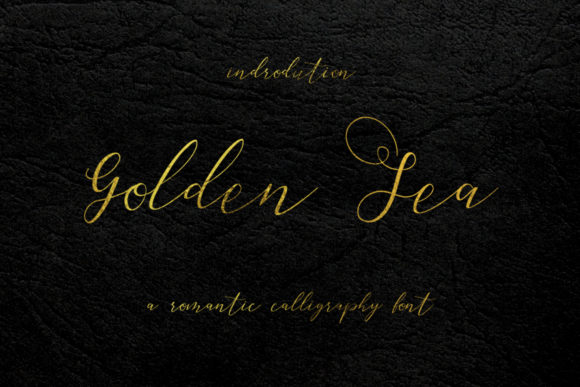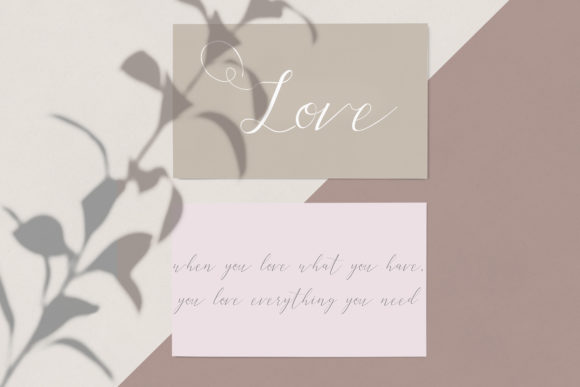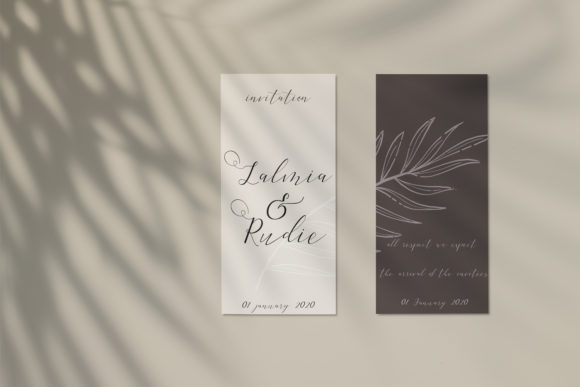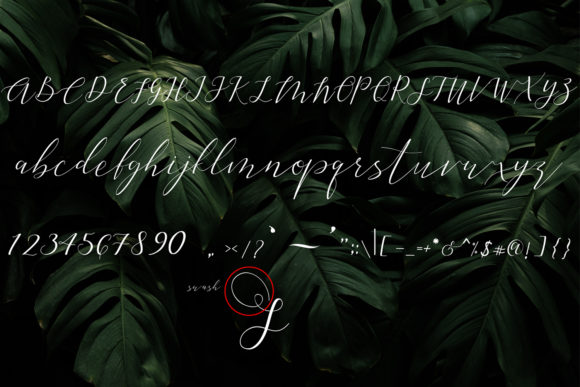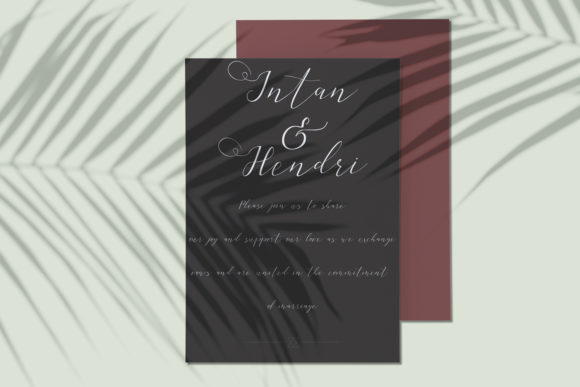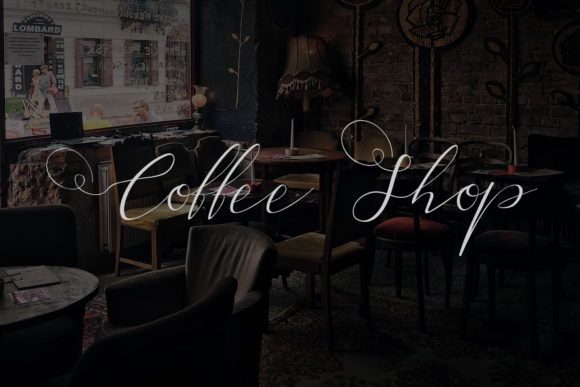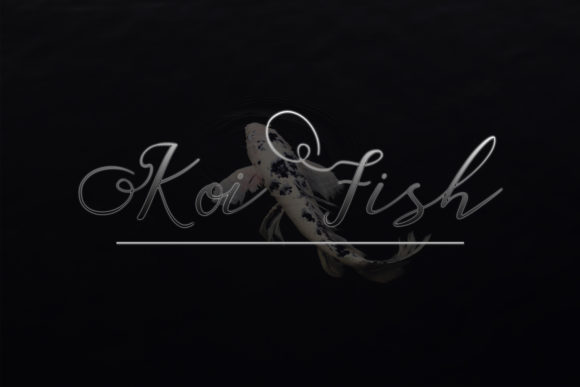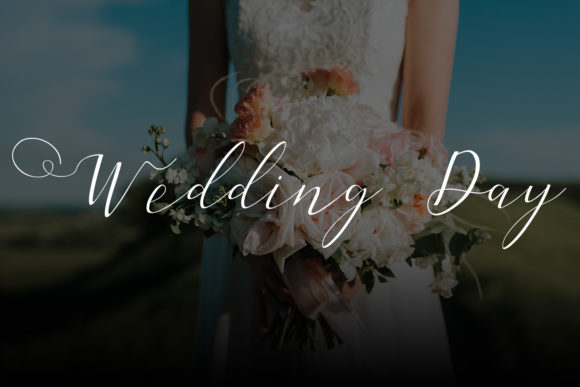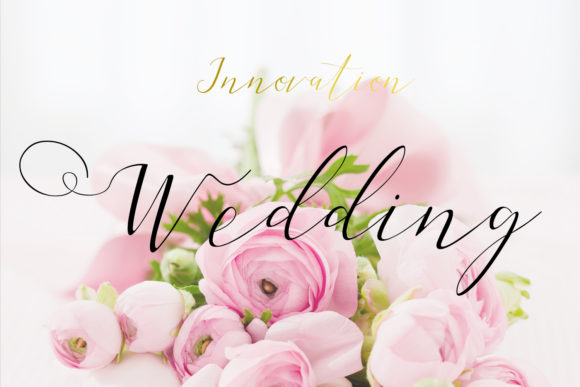
HomeScript FontsGolden Sea Font Script Fonts Golden Sea Font FacebookXPinterestWhatsApp Golden Sea Font Poster 2 Golden Sea Font Poster 3 Golden Sea Font Poster 4 Golden Sea Font Poster 5 Golden Sea Font Poster 6 Golden Sea Font Poster 7 Golden Sea Font Poster 8 Golden Sea Font Poster 9 About Golden Sea Font Golden Sea is a swashy and lovely script font that features a stunning calligraphic style. DOWNLOAD NOW People also explored Farmhouse Font Candy Kisses Valentine Font Energy Font Qoubizza Font Sunday Scaries Font Bothside Font Dial Font Enamel Camp Mug Mockup Hat Doodles 360 0 TagsGolden Sea Font Previous articleMarxellina FontNext articleBella Berry Font LEAVE A REPLY Cancel reply Comment: Please enter your comment! Name:* Please enter your name here Email:* You have entered an incorrect email address! Please enter your email address here Website: Save my name, email, and website in this browser for the next time I comment. Personal Use Free Joystix Monospace Personal Use Free Read more about this font Silver Bullet Personal Use Free Read more about this font Reztop Personal Use Free Read more about this font Market Love Personal Use Free Read more about this font BLOG How to Install and Use Fonts on Windows, macOS, and Web Projects How to Install and Use Fonts on Windows, macOS, and Web Projects Fonts are a crucial part of design and branding. Whether you’re designing a... Using Fonts in Digital Marketing: Tips to Strengthen Your Brand Identity Fonts That Capture the Spirit of New York City Modern Sans-Serif Fonts That Brands Love in 2025